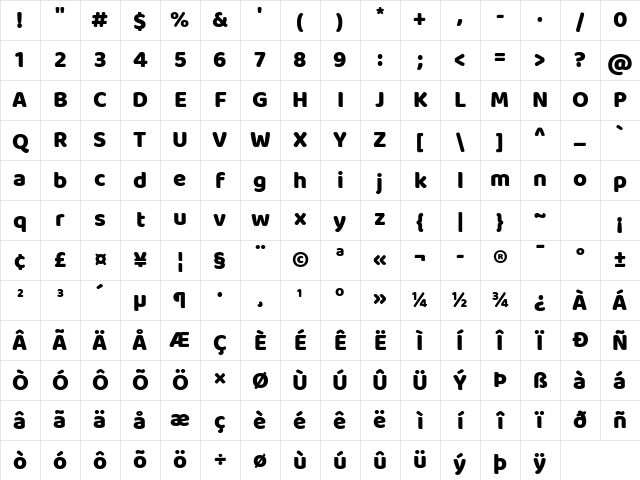
Baloo Da Regular
Foundry: Ek Type
Designer: Noopur Datye and Ek Type
Complete Baloo Da Regular glyph index. Displaying only characters natively supported by Baloo Da Regular font.
Design Context for Baloo Da
Baloo Da is a composed and adaptable typeface that performs quietly and consistently across a wide range of design contexts.